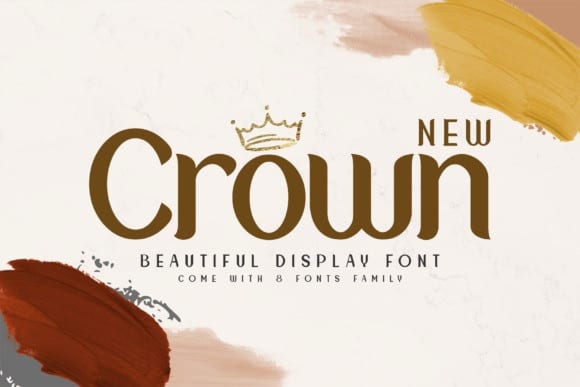
New Crown Sans Serif Font
New Crown is a distinct, elegant sans serif display font that blends traditional influences into a contemporary aesthetic. Its well balanced Latin details contain distinctive contrasts.
Use New Crown to achieve an exquisite, yet subtle look and maximum versatility. This font is free for PERSONAL USE.